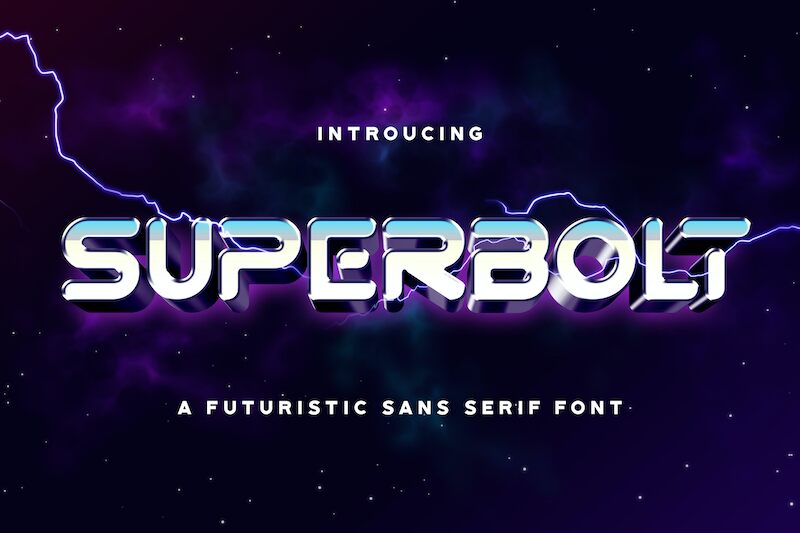
SUPERBOLT
SUPERBOLT, a bold and wide display font designed by Virgiawan Listanto, is a great choice for futuristic projects. Its strong visual impact makes it perfect for posters, headlines and logos.